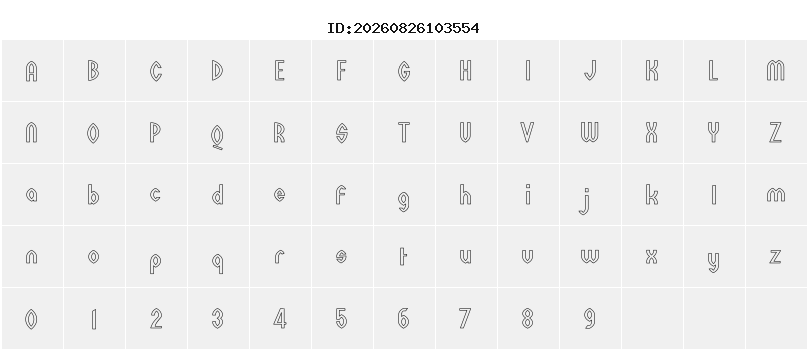
• Font Name: Wazoo Outline
• Designer: Graham Meade
About Wazoo Outline.ttf
Wazoo Outline.ttf is a modern, elegant sans-serif font designed for ultimate readability and visual harmony. Perfect for branding, headlines, web design, and print materials.